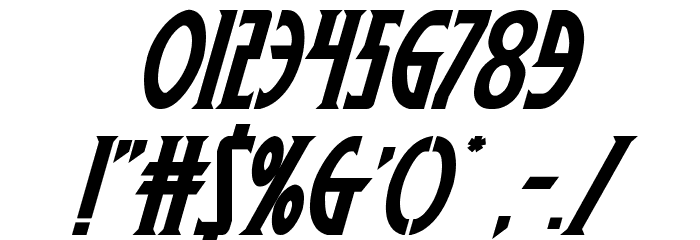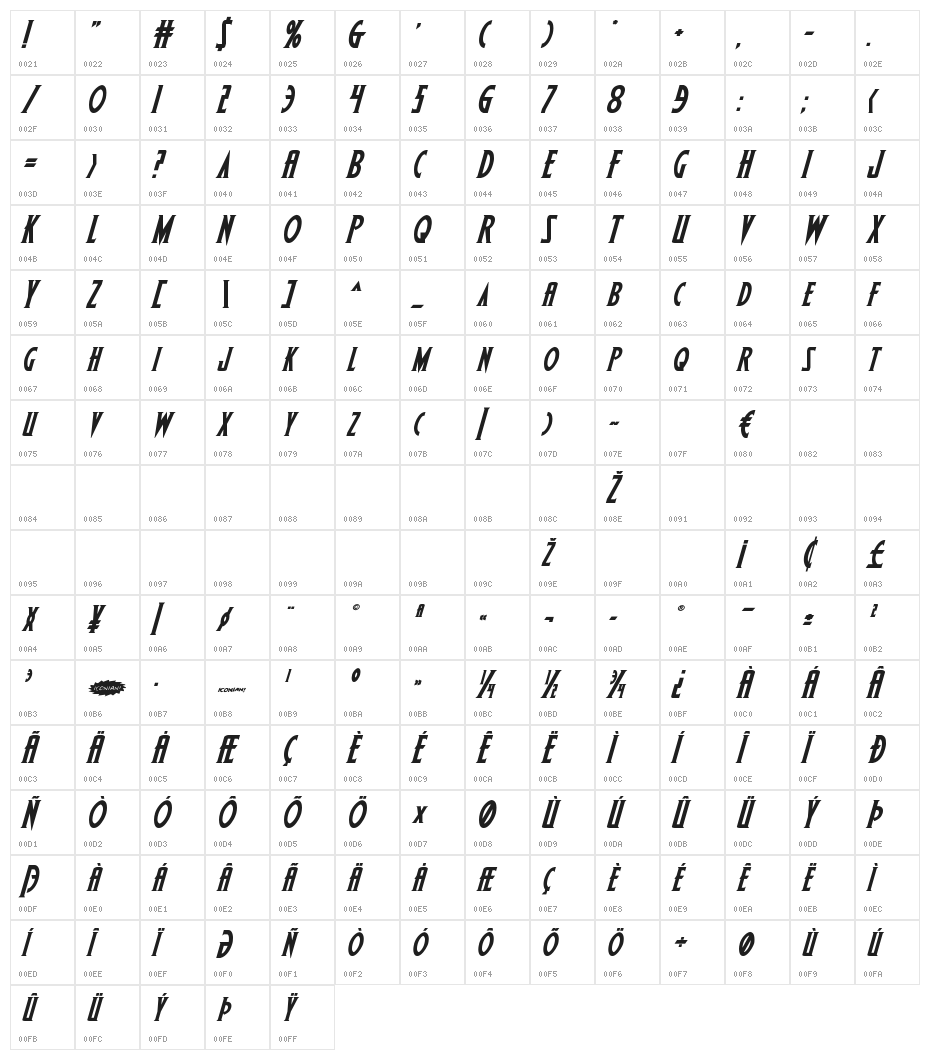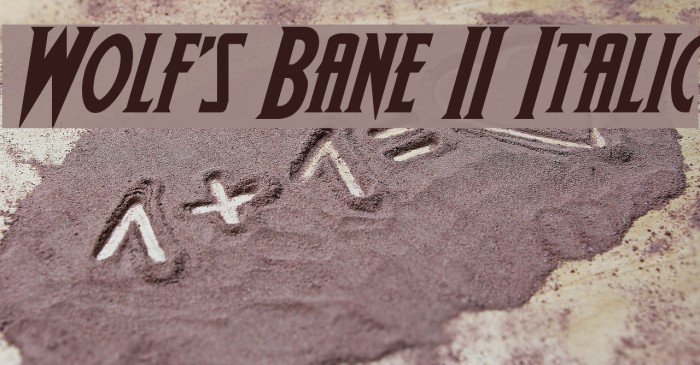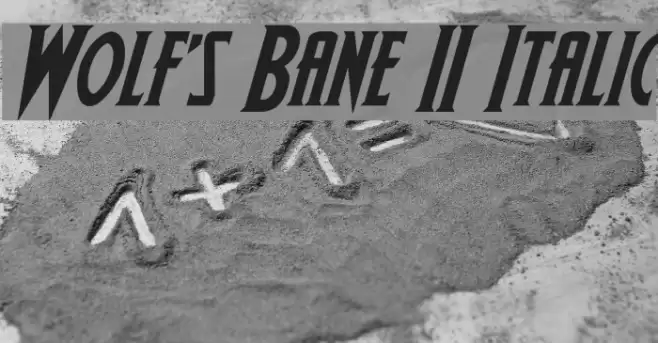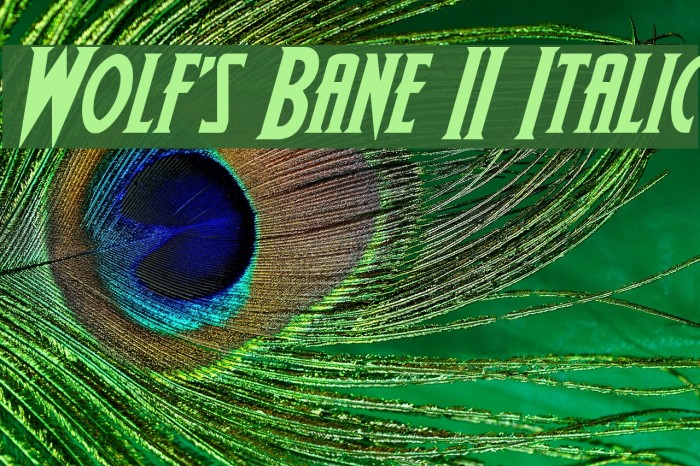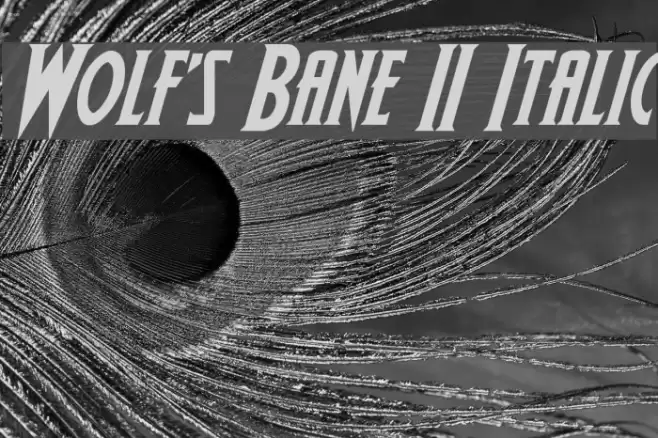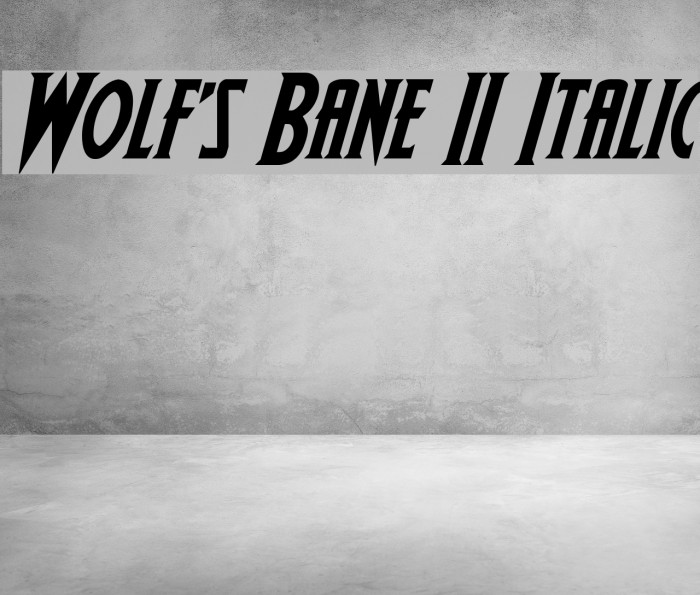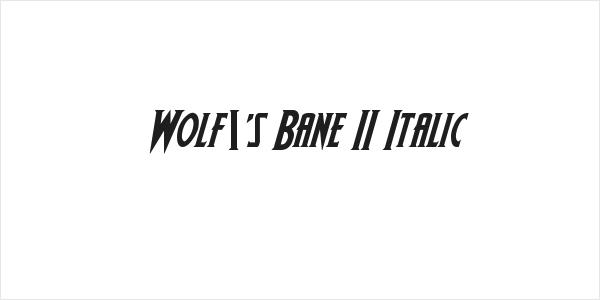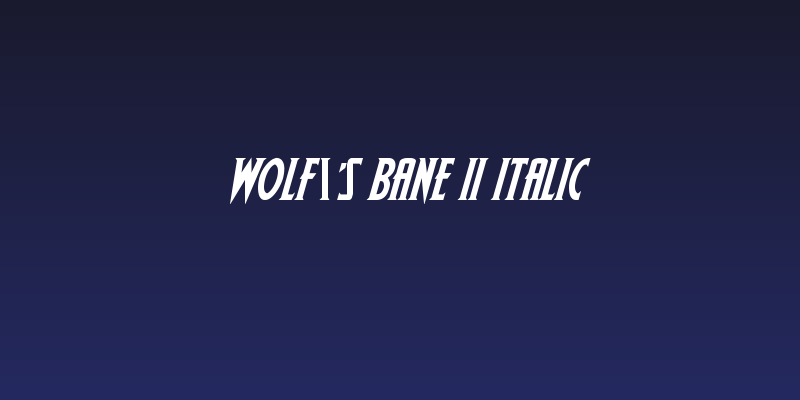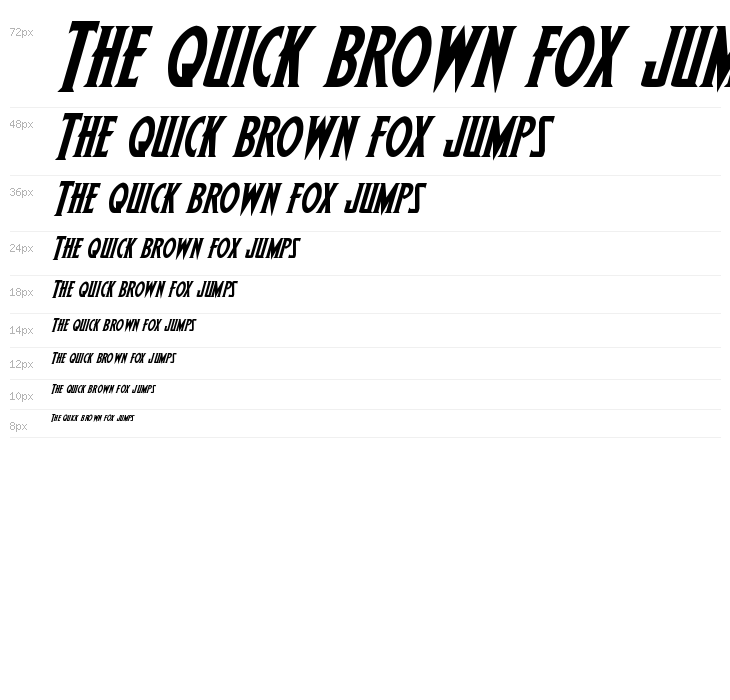
Wolf's Bane II Italic Font
Wolf's Bane II Italic Description
This font features a bold and dynamic italic style with sharp, angular edges that create a sense of movement and energy. The characters are tightly spaced, enhancing the compact and impactful appearance. The strokes are thick and consistent, providing a strong visual presence. The design is modern and slightly aggressive, making it suitable for attention-grabbing headlines or branding that requires a bold statement. The uppercase and lowercase letters maintain a uniform style, while the numerals and special characters complement the overall aesthetic.